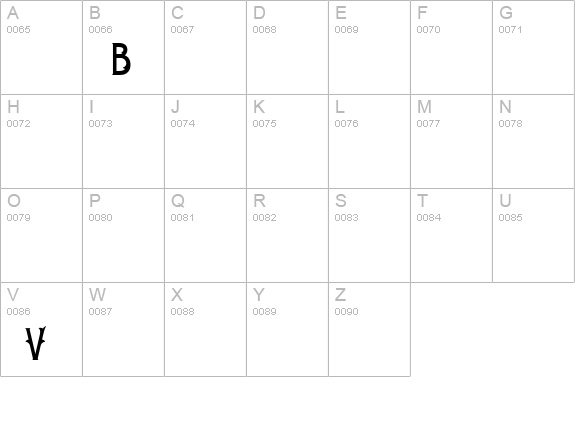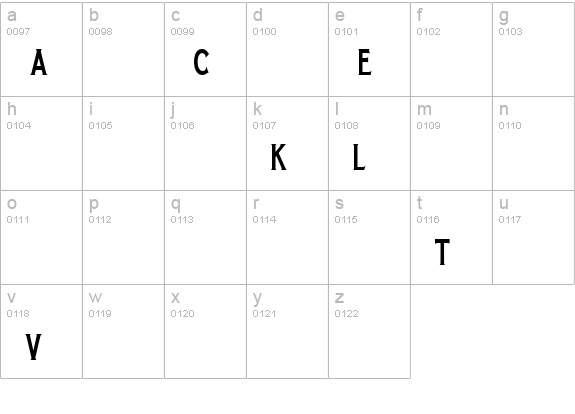
Black Velvet is a maximum-weight, dramatic variant in the Black typeface family \xE2\x80\x94 well suited to maximum-impact headlines, posters, and packaging.
Introducing Black Velvet, a breathtakingly elegant font that exudes sophistication and grace. With its sleek lines and delicate curves, this typeface commands attention and adds a touch of glamour to any design project. Black Velvet's timeless appeal is enhanced by its versatility, making it perfect for a wide range of applications. Whether you're designing a logo, creating a wedding invitation, or crafting a stylish magazine layout, this font will effortlessly elevate your work to new heights. What sets Black Velvet apart is not only its stunning aesthetics but also its accessibility. This font is freely available to download at FontsMarket.com, ensuring that designers and creatives of all backgrounds can enjoy its beauty without any restrictions. The clean and crisp letterforms of Black Velvet are meticulously crafted to ensure legibility and readability in both print and digital mediums. Its well-balanced proportions and harmonious spacing make it a joy to work with, allowing you to effortlessly create impactful designs. Black Velvet's versatility extends to its language support, making it suitable for multilingual projects. With a wide range of characters and glyphs, this font can effortlessly handle various languages and accent marks, ensuring that your message remains consistent and clear across different cultures. Whether you're a seasoned designer or a budding creative, Black Velvet is the perfect addition to your font collection. Its timeless elegance, accessibility, and impeccable craftsmanship make it a must-have for anyone looking to create visually stunning and impactful designs. Don't miss out on the opportunity to enhance your creative projects with Black Velvet. Download this exquisite font freely at FontsMarket.com and let your imagination run wild. With Black Velvet, the possibilities are endless, and your designs will undoubtedly leave a lasting impression.